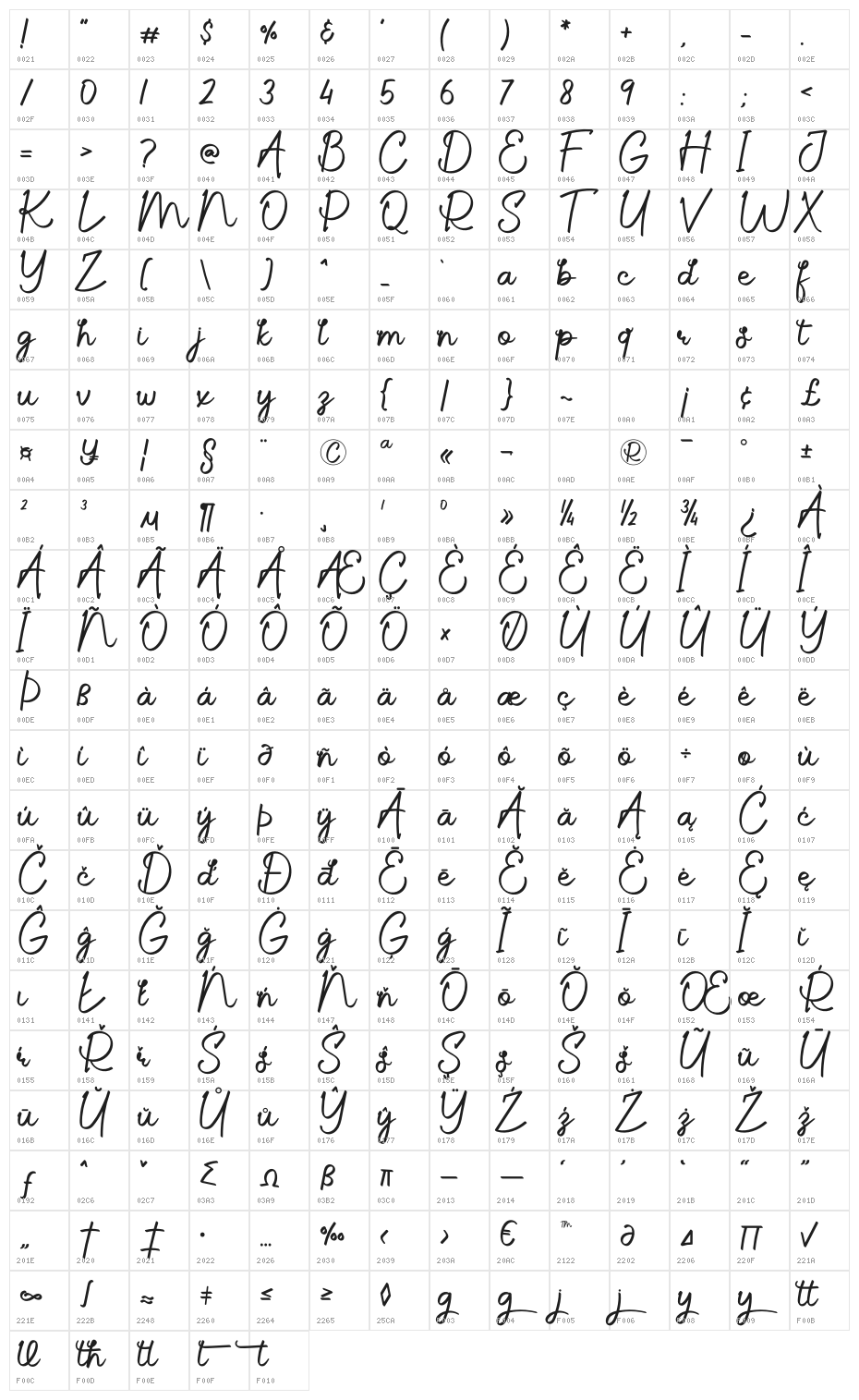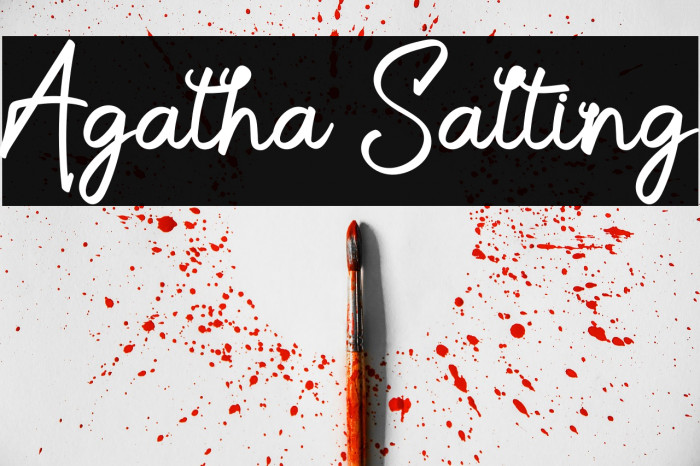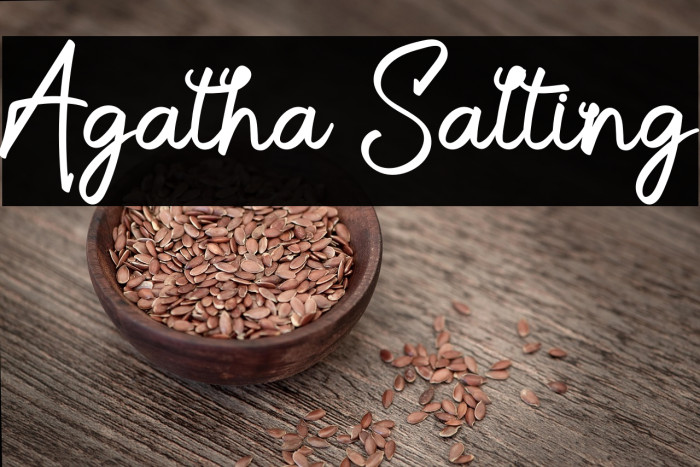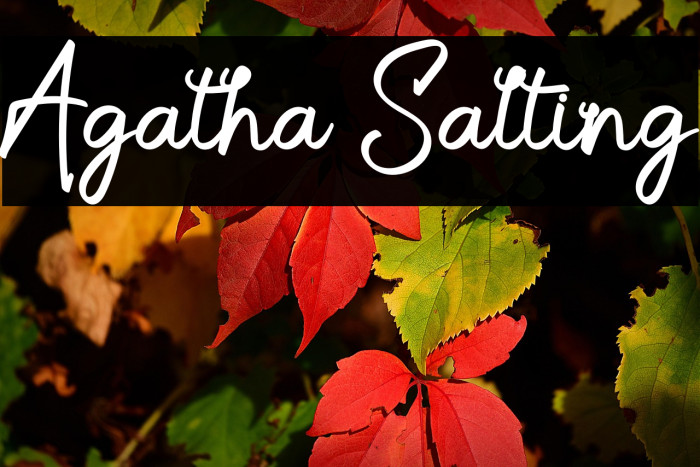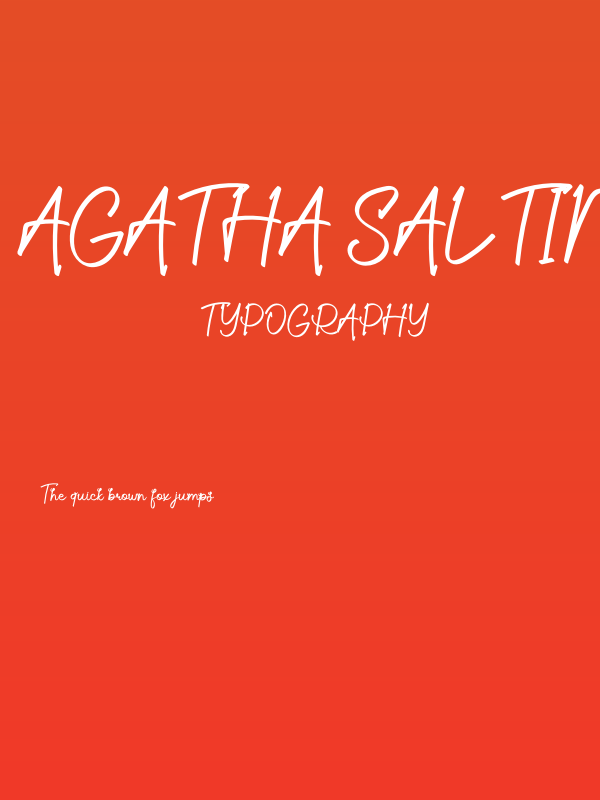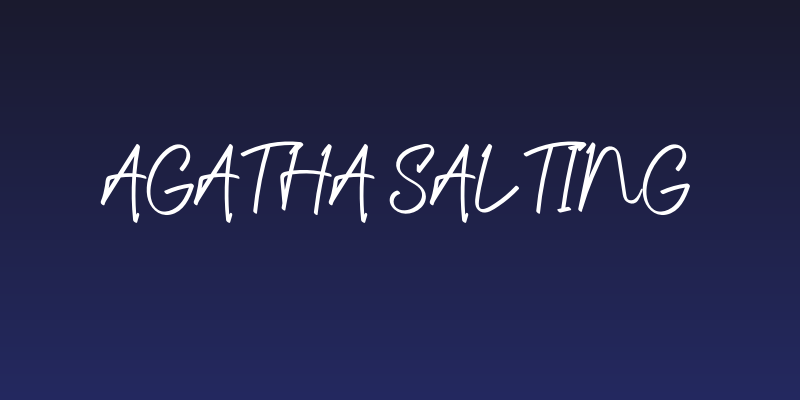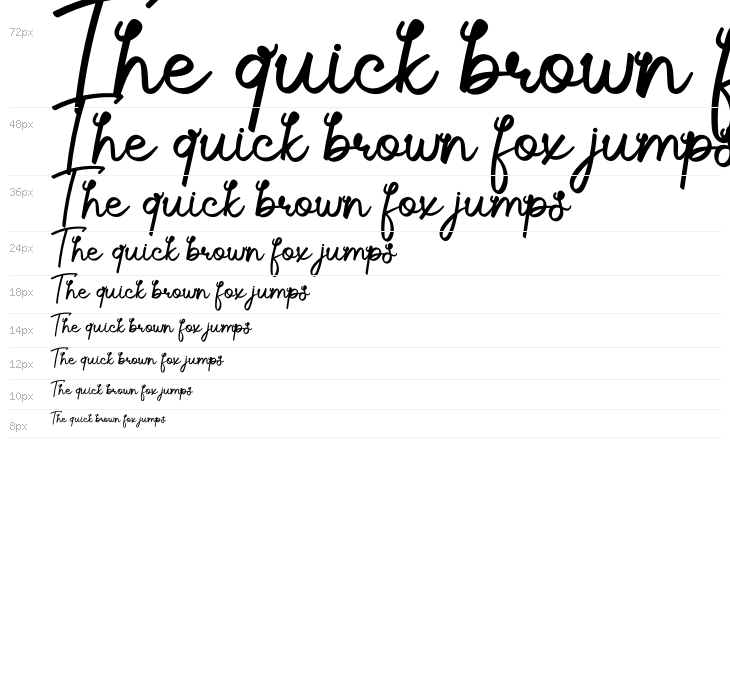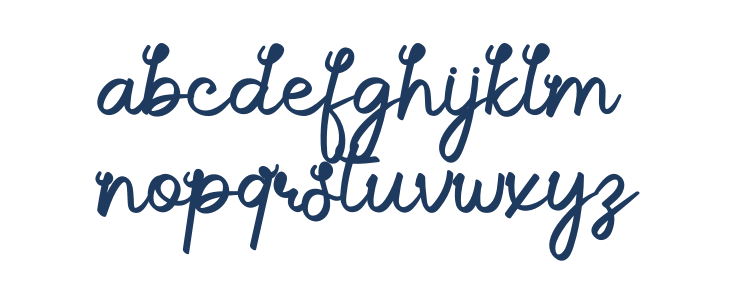
Agatha Salting Font
Agatha Salting Description
This font features a playful and whimsical script style with a handwritten appearance. The uppercase letters are tall and slightly slanted, giving a casual yet elegant look. The lowercase letters are rounded and connected, enhancing the fluidity and natural flow of handwriting. The numbers maintain the same playful style, with consistent stroke widths that add to the font's cohesive appearance. Special characters are designed to match the overall aesthetic, ensuring versatility in various design contexts. The font's unique character is emphasized by its smooth curves and balanced proportions, making it suitable for creative and informal projects.
| Overall Style | Playful, Whimsical, Casual |
| Use Case | Headlines, Invitations, Personal Branding |
| Proposed Projects | Ideal for greeting cards, invitations, personal branding, and creative projects requiring a casual, friendly touch. |